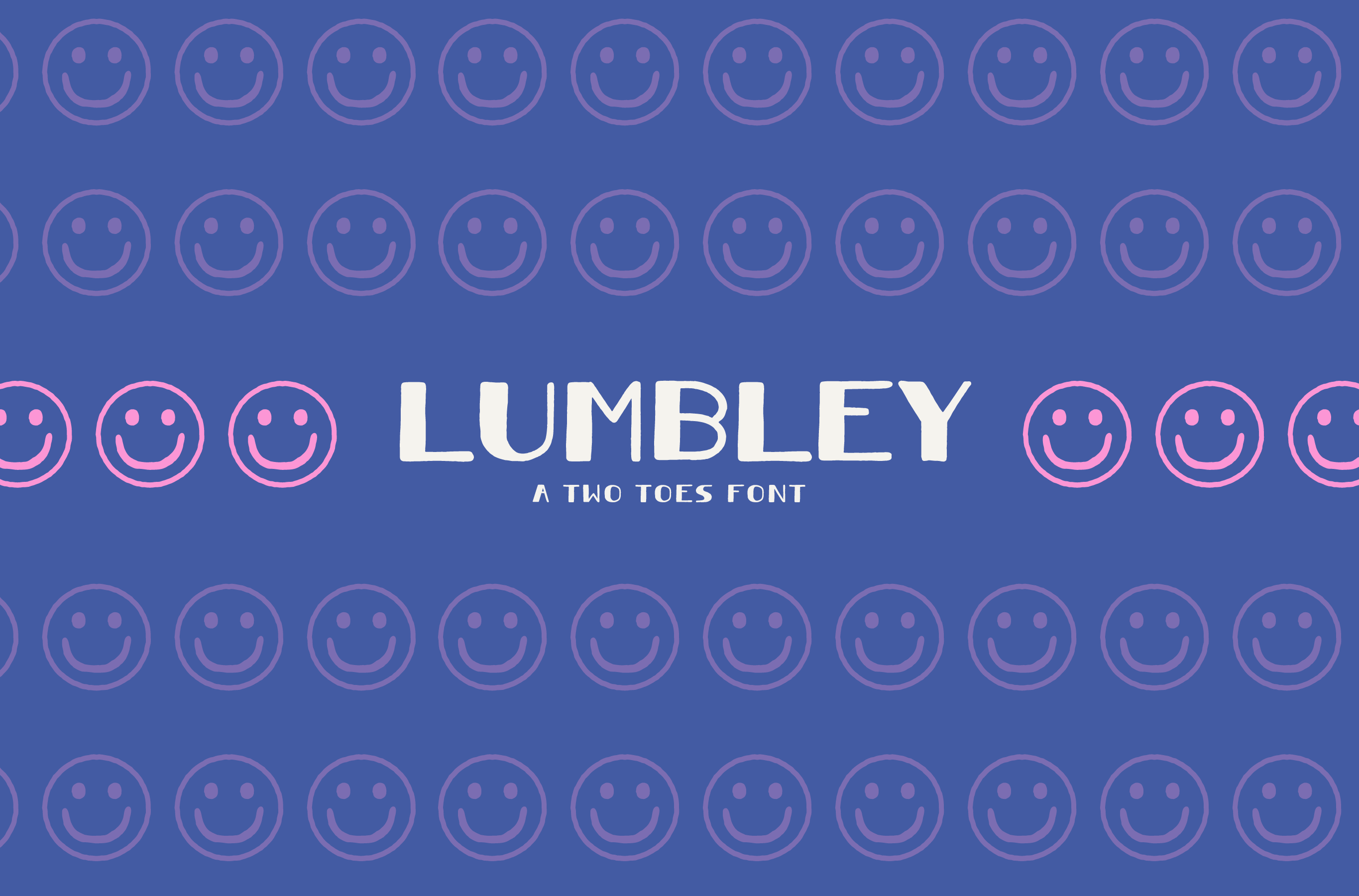
Lumbley: Vintage Display Font
Meet Lumbley: A hand-inked display font, with a vintage feel. Think slap stick comedy & the 1920’s. We think it’s fun - and I bet you’ll like it too!